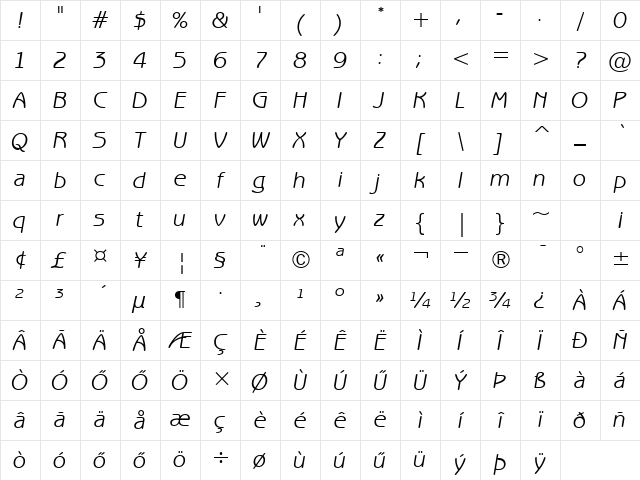
H_Benguiat Gothic BT Italic
H_Benguiat Gothic BT Family
Complete H_Benguiat Gothic BT Italic glyph index. Displaying only characters natively supported by H_Benguiat Gothic BT Italic font.
Design Context for H_Benguiat Gothic BT
H_Benguiat Gothic BT takes a clean, functional approach - its unadorned letterforms prioritise legibility and work reliably across screen and print environments. The slanted form adds forward momentum and visual energy.
Font Pairing: Works well alongside a characterful serif or display font that can carry the expressive load while H_Benguiat Gothic BT handles the functional copy.
Pro Tip: Use H_Benguiat Gothic BT for UI labels, navigation, and short-form body copy where clean legibility is the priority.